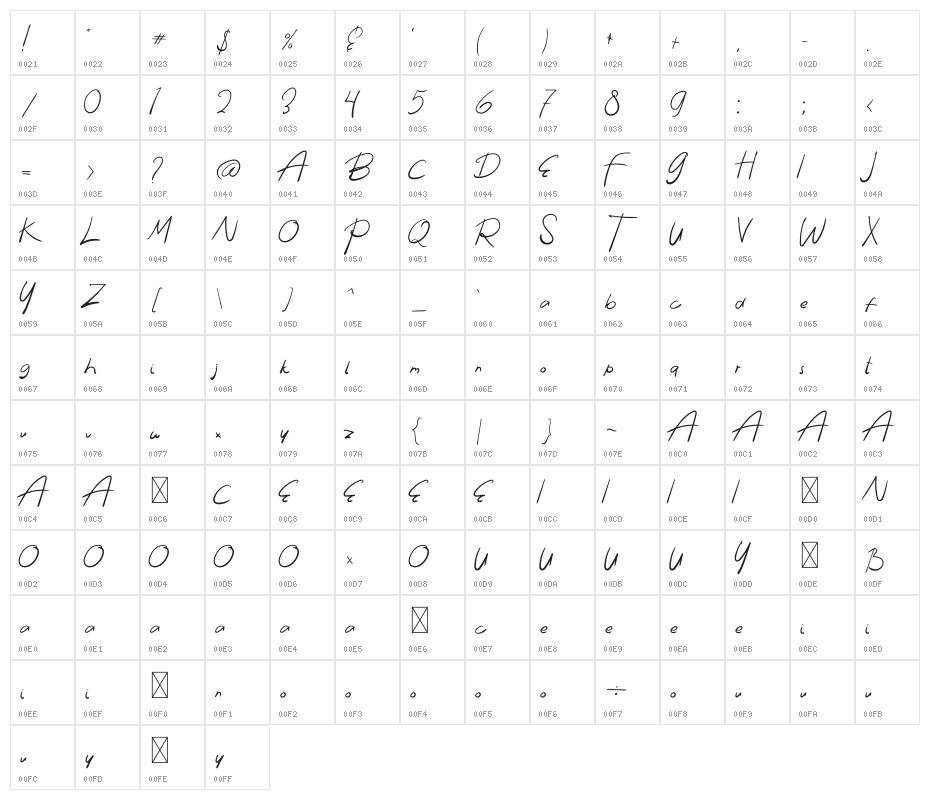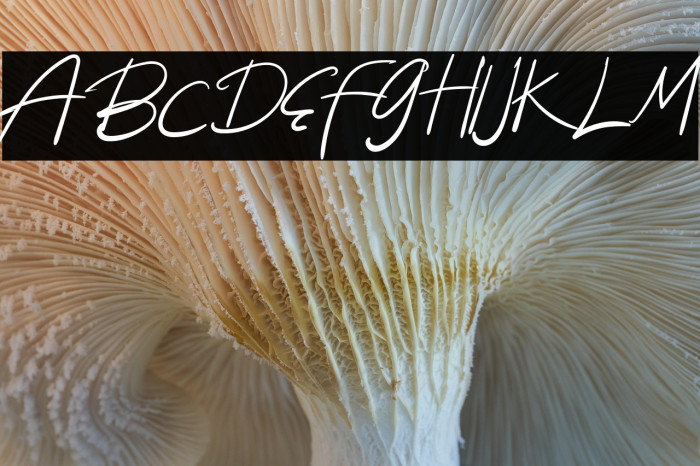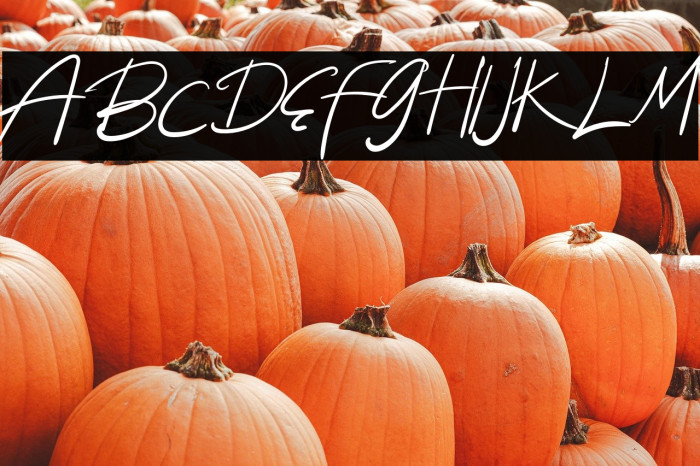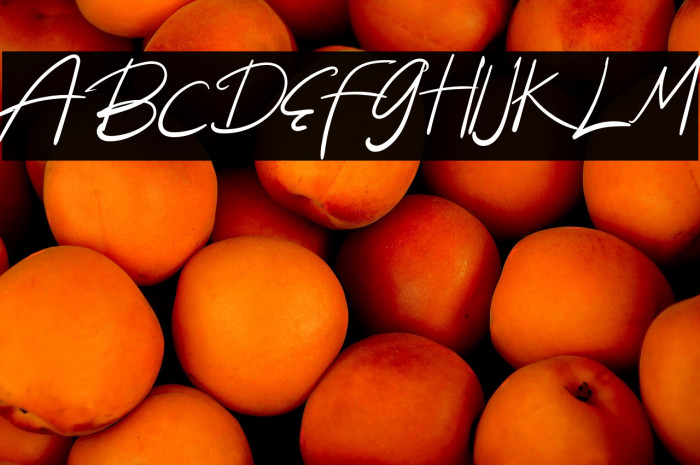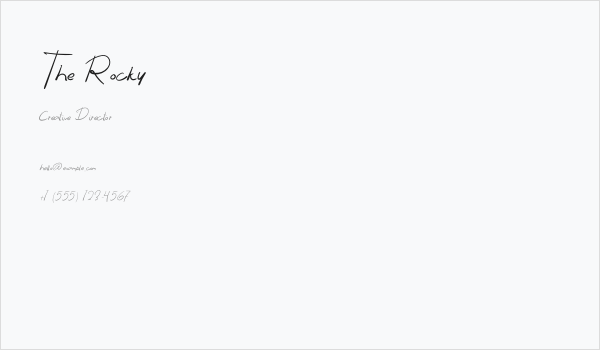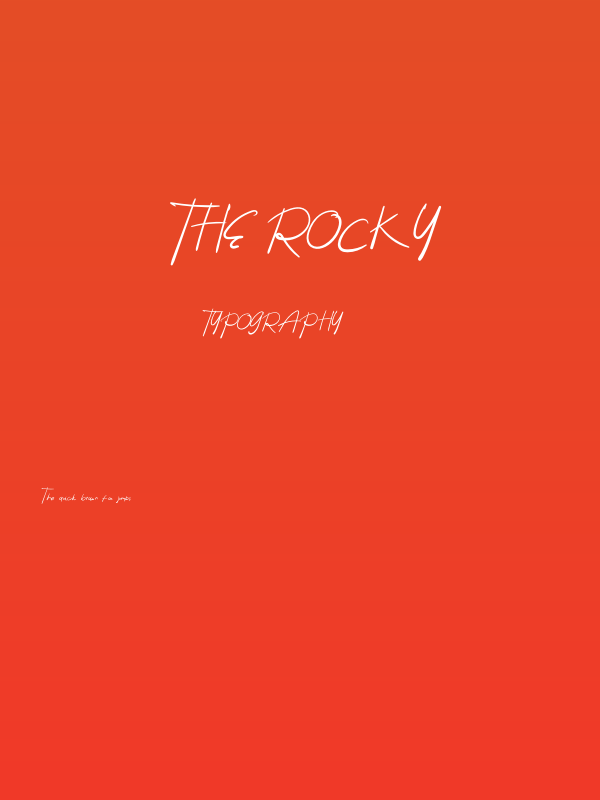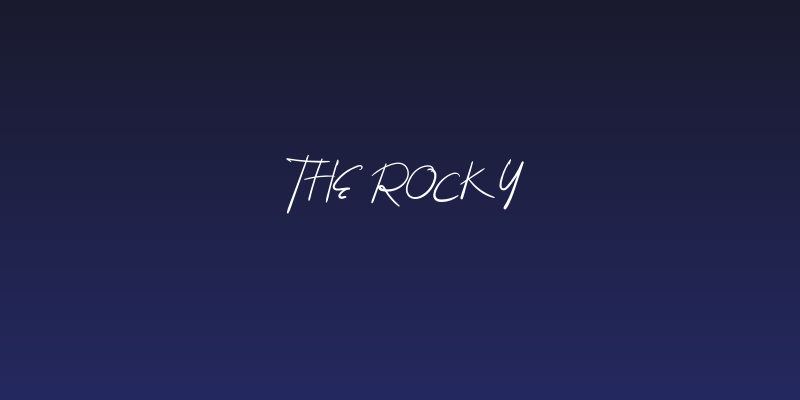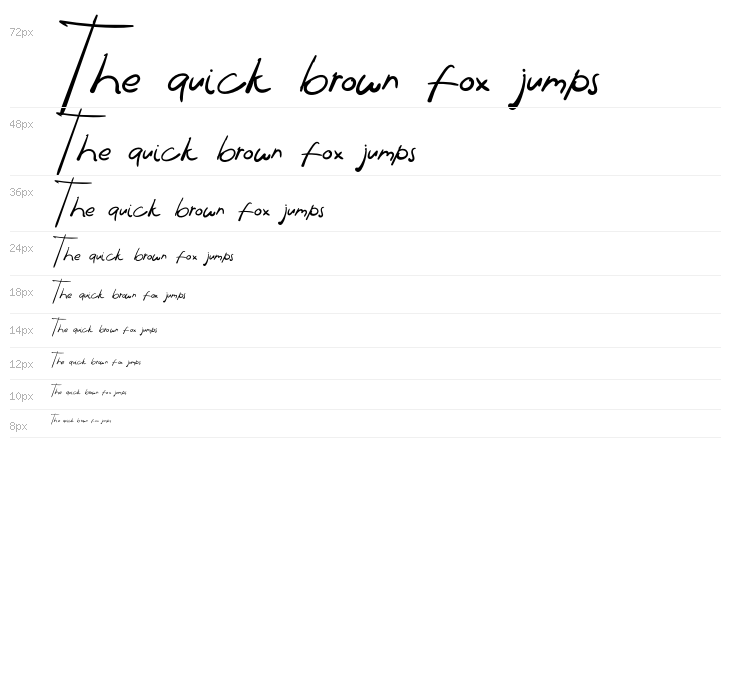
The Rocky Font
The Rocky Description
This font exhibits a dynamic and energetic style, characterized by its handwritten appearance with a slight slant. The strokes are fluid and slightly irregular, giving it a casual yet sophisticated look. The uppercase letters are bold and prominent, while the lowercase letters maintain a consistent flow, enhancing readability. The numerals are uniquely styled to match the overall aesthetic, and the special characters are crafted with the same attention to detail. This font is perfect for projects that require a personal touch, such as invitations, greeting cards, or branding materials.
| Use Case | Logos, Headlines, Personal projects |
| Proposed Projects | Ideal for invitations, greeting cards, branding, and personal projects. |